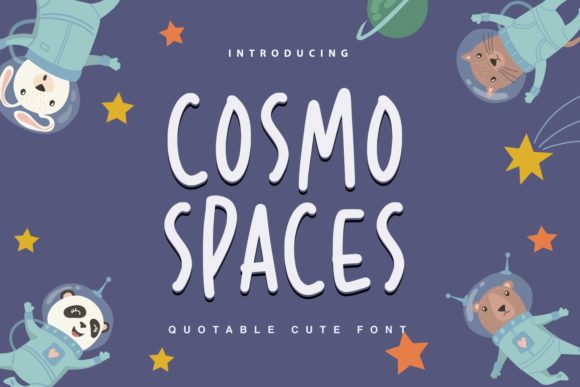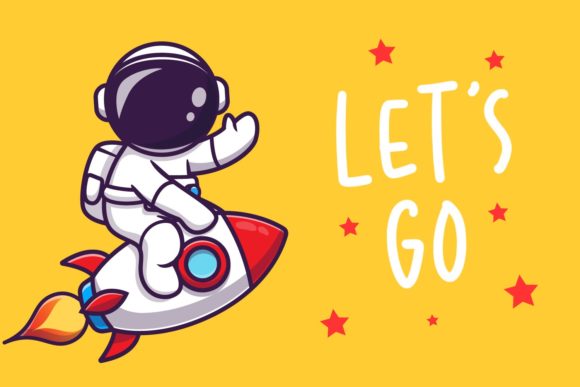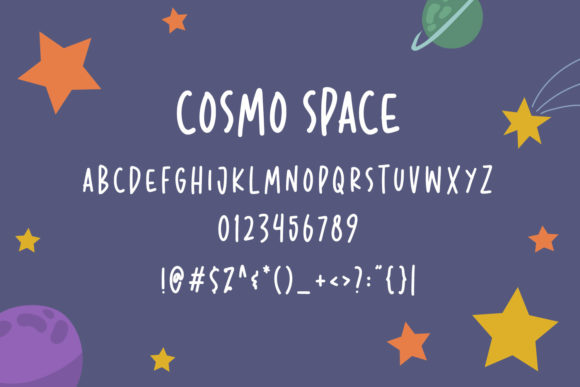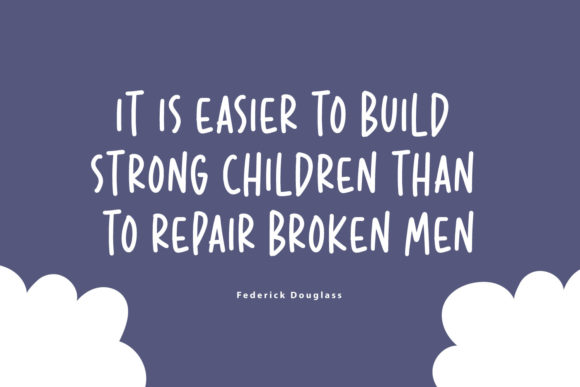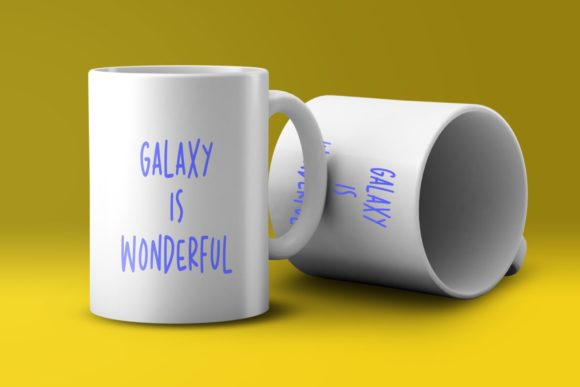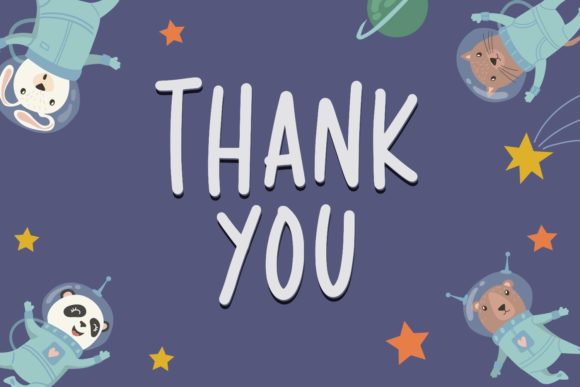
Cosmo Space Font
About Cosmo Space Font
Cosmo Space is a trendy and readable handwritten font. It can easily be matched to an incredibly large set of projects, so add it to your creative ideas and notice how it makes them stand out!